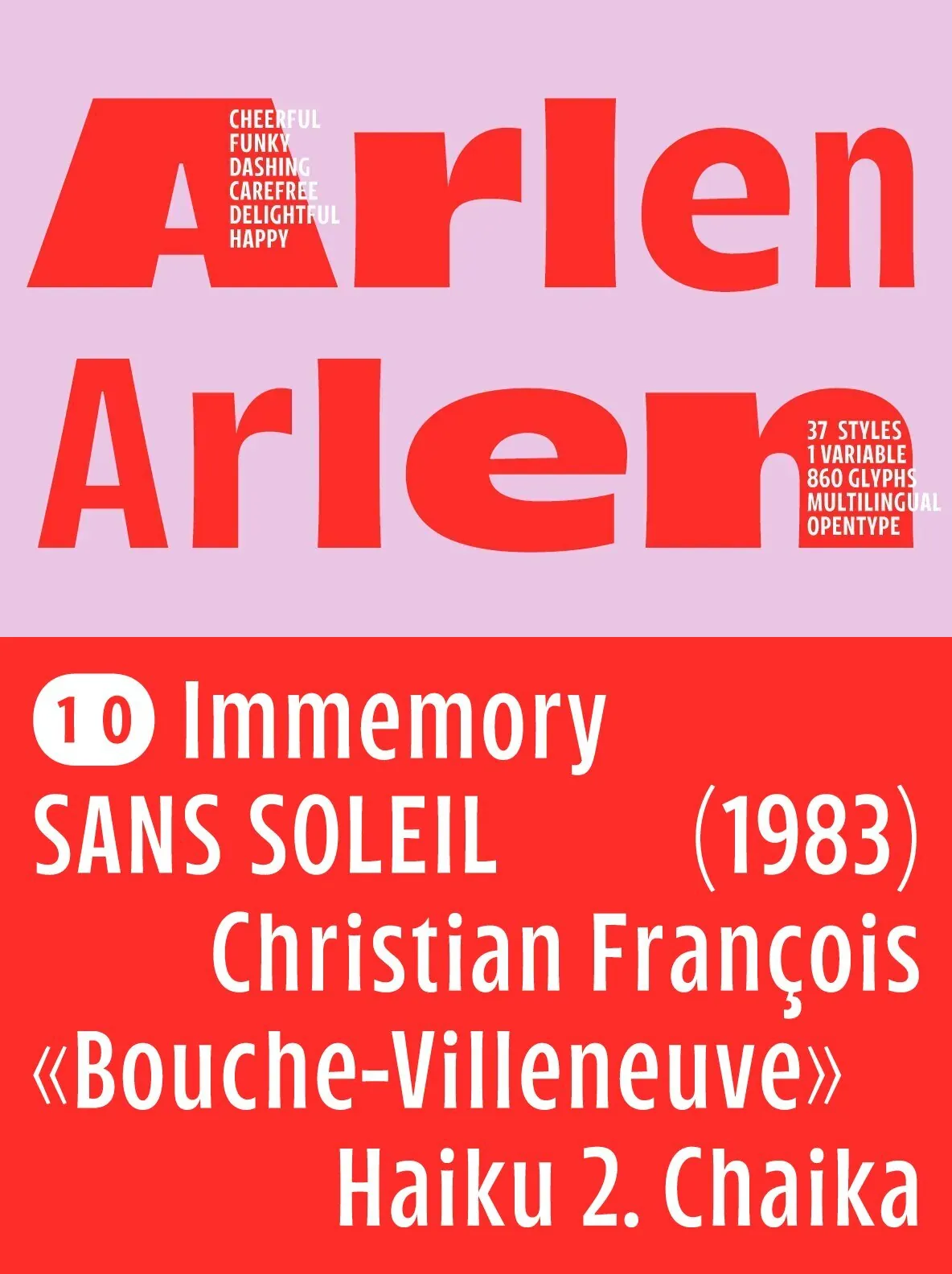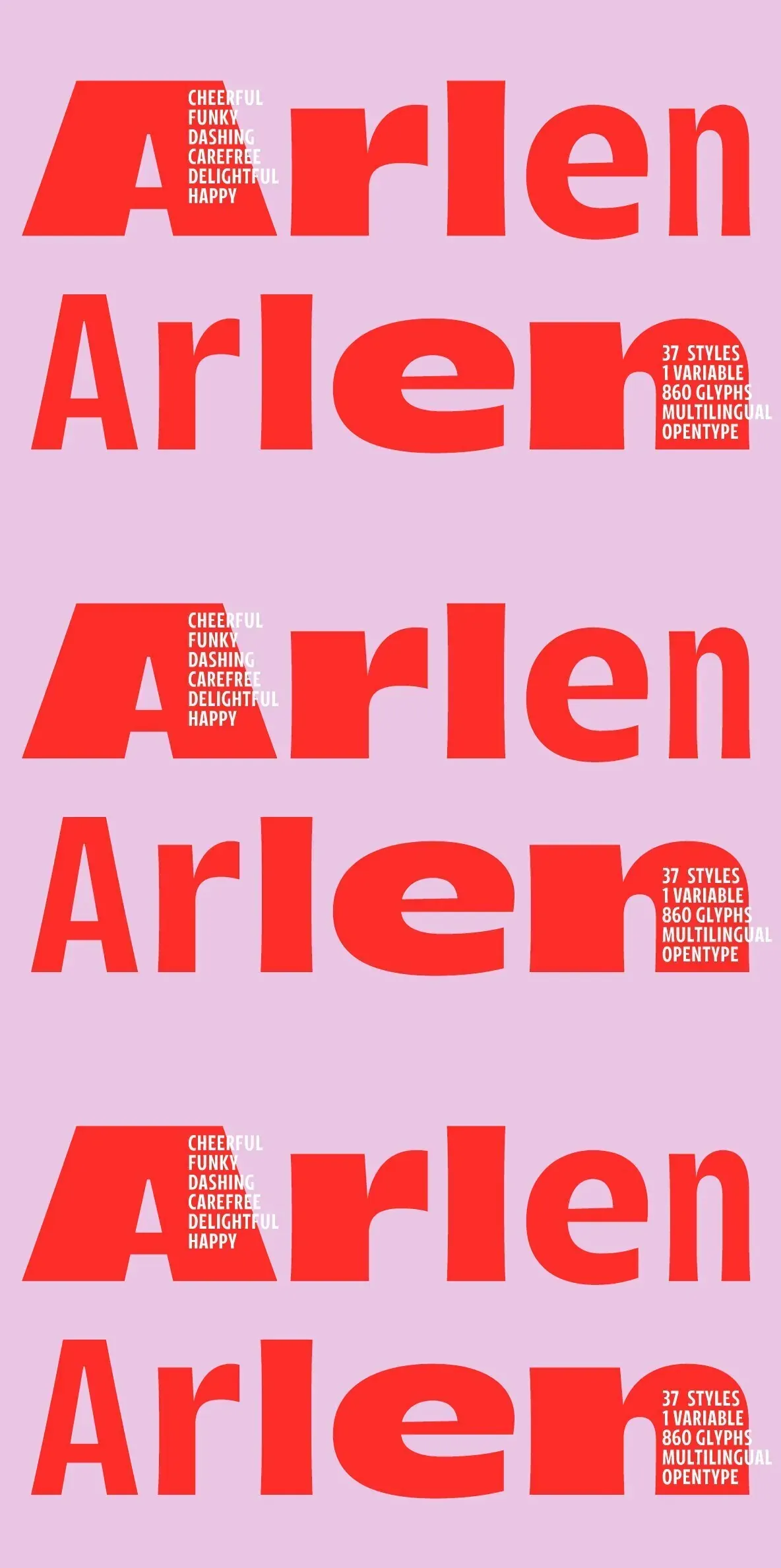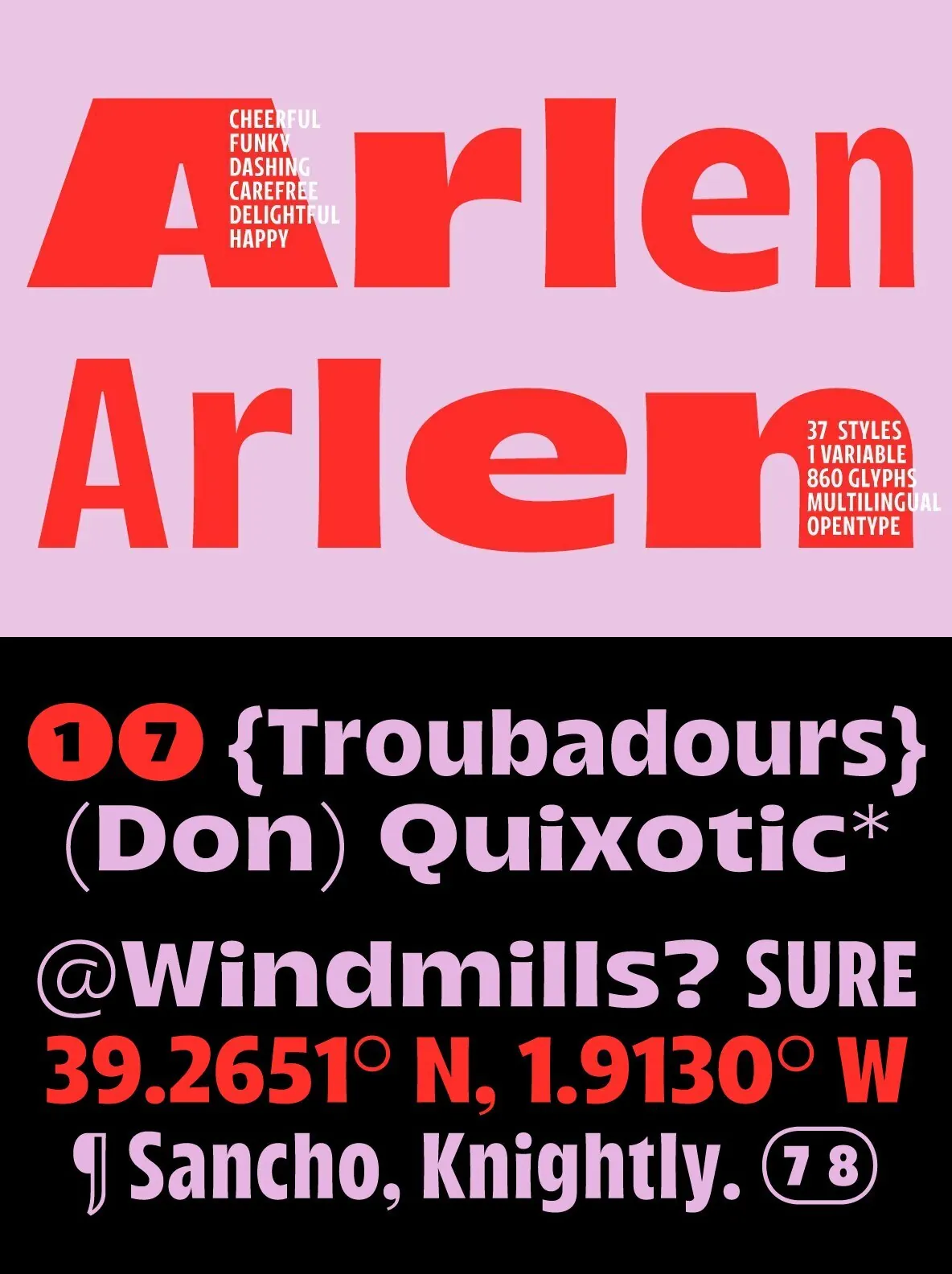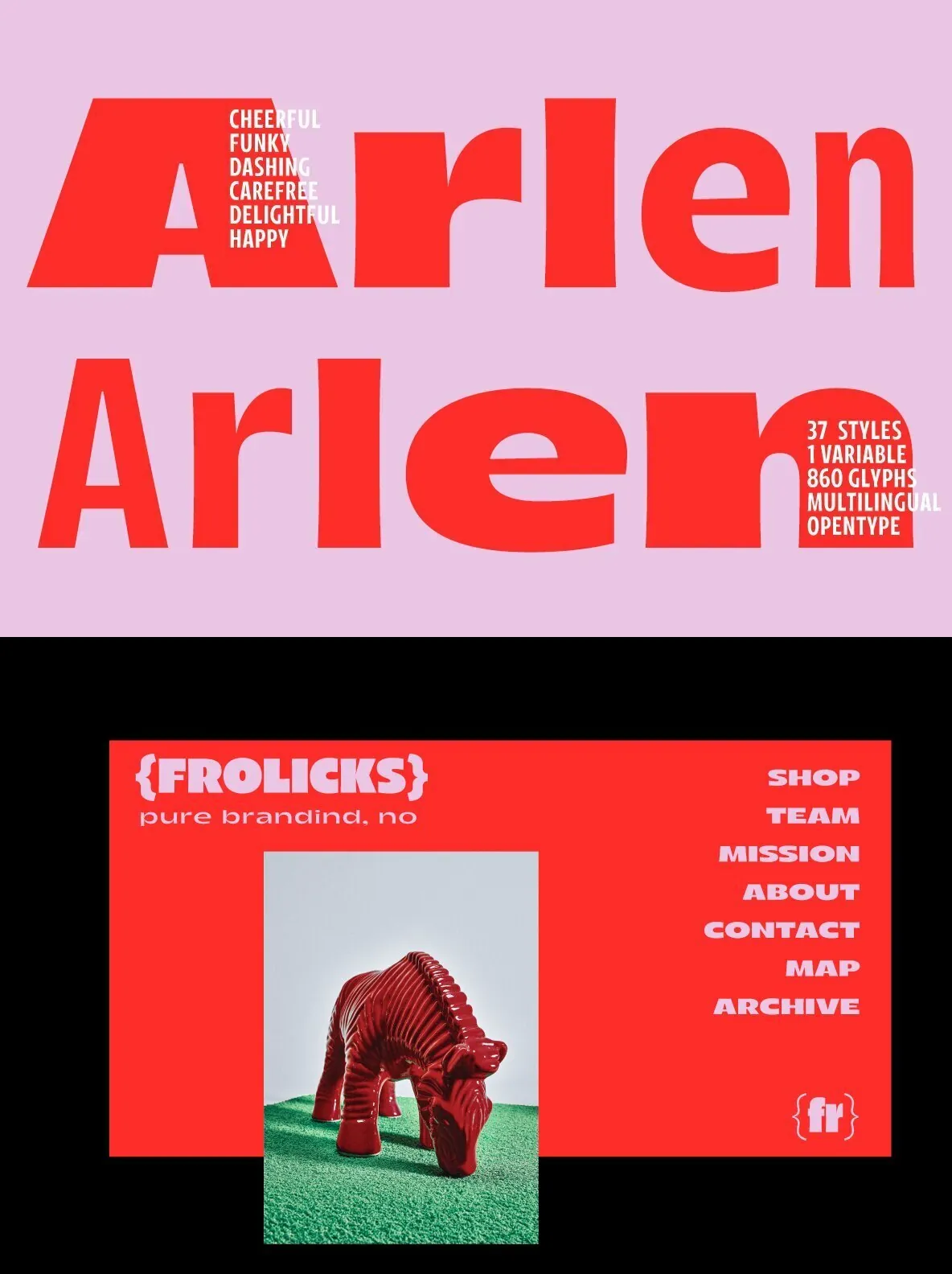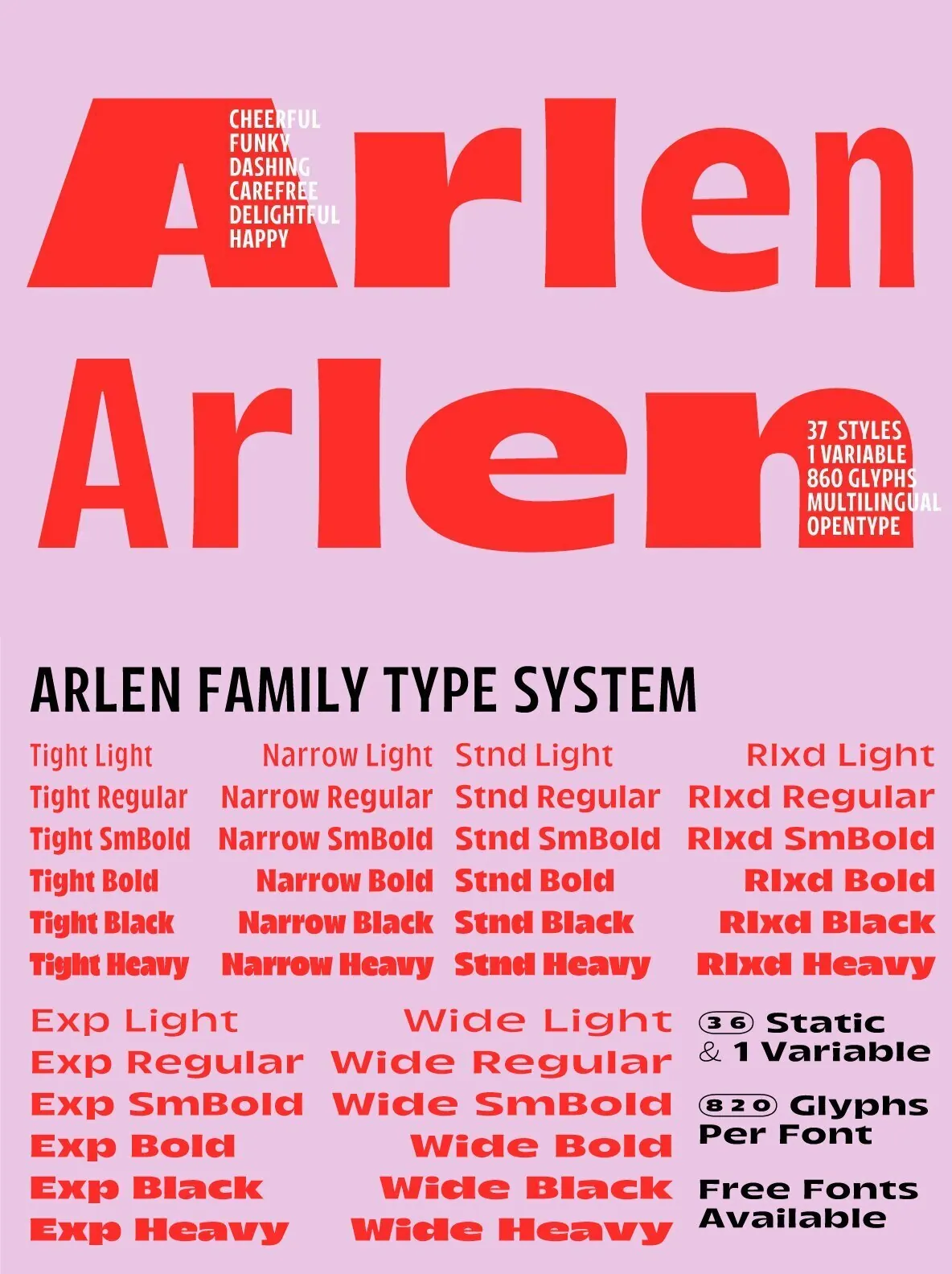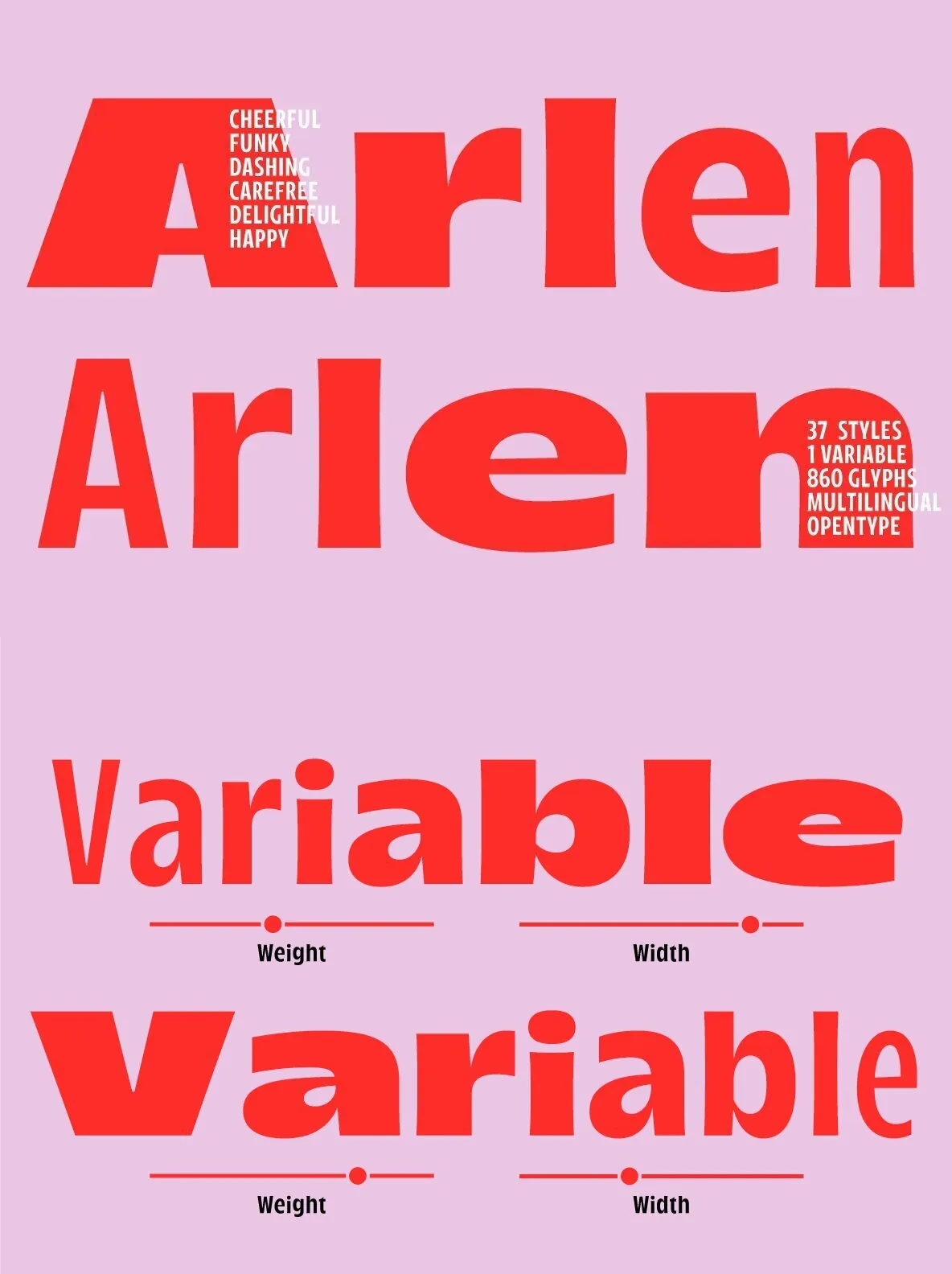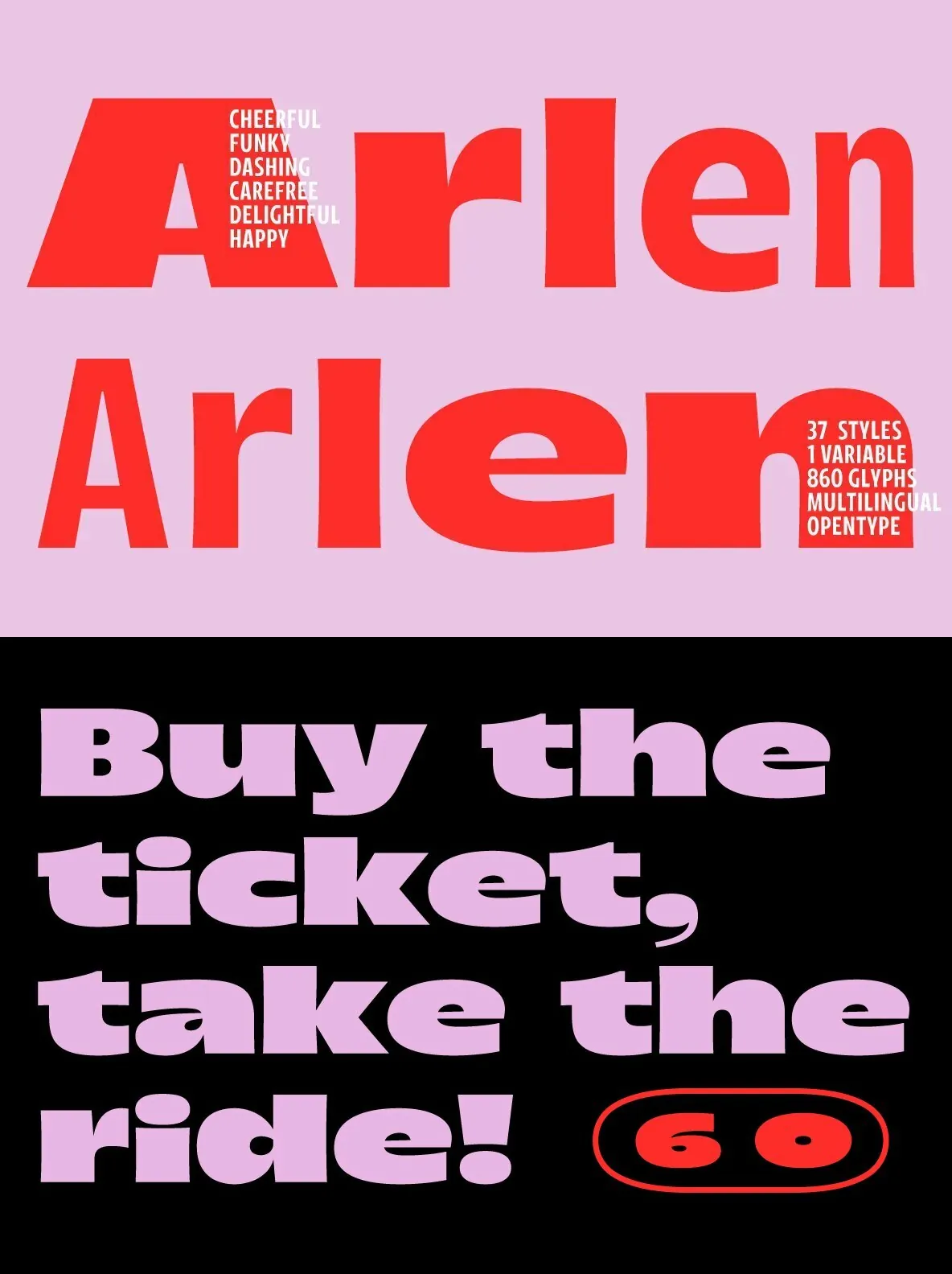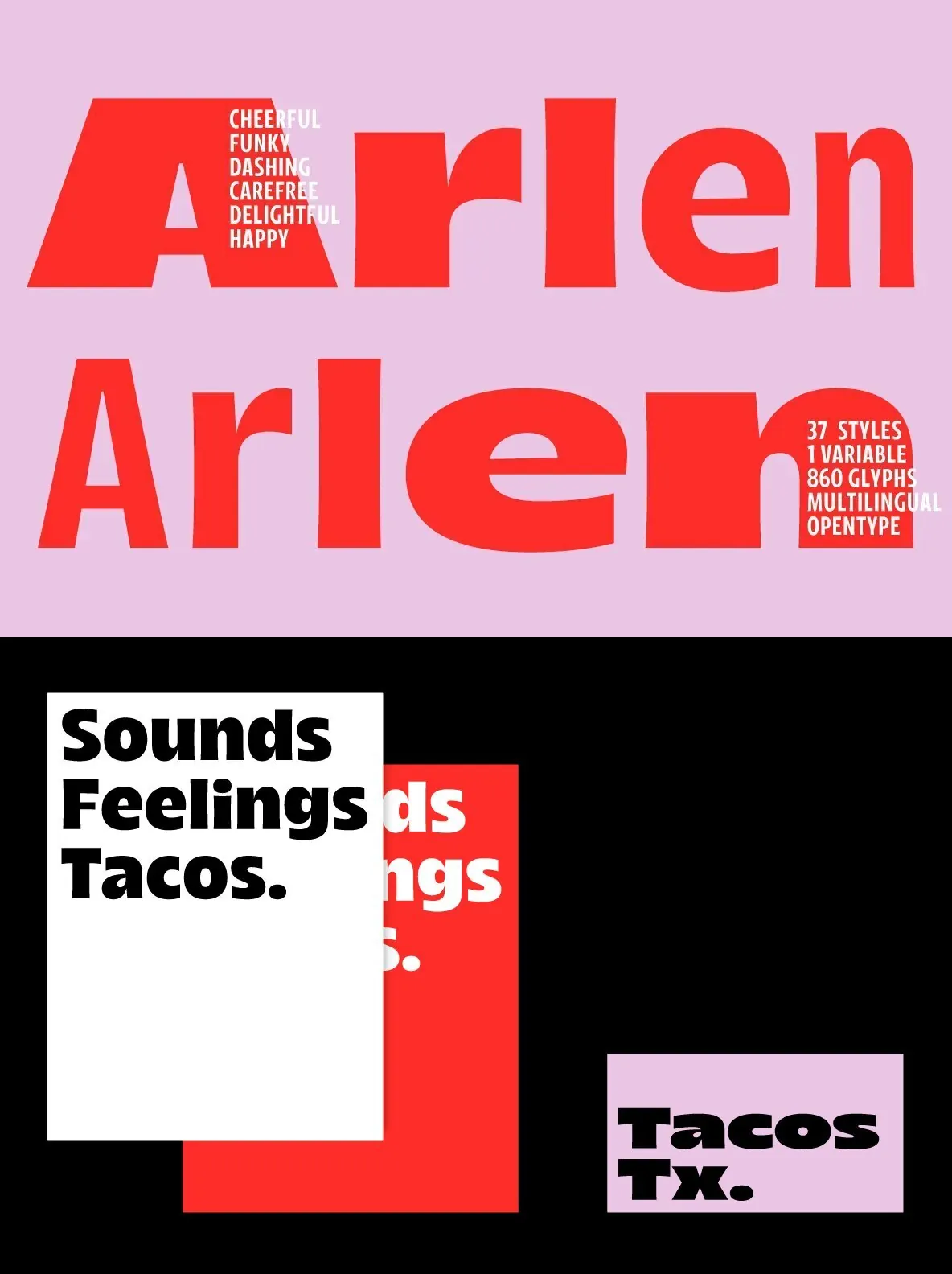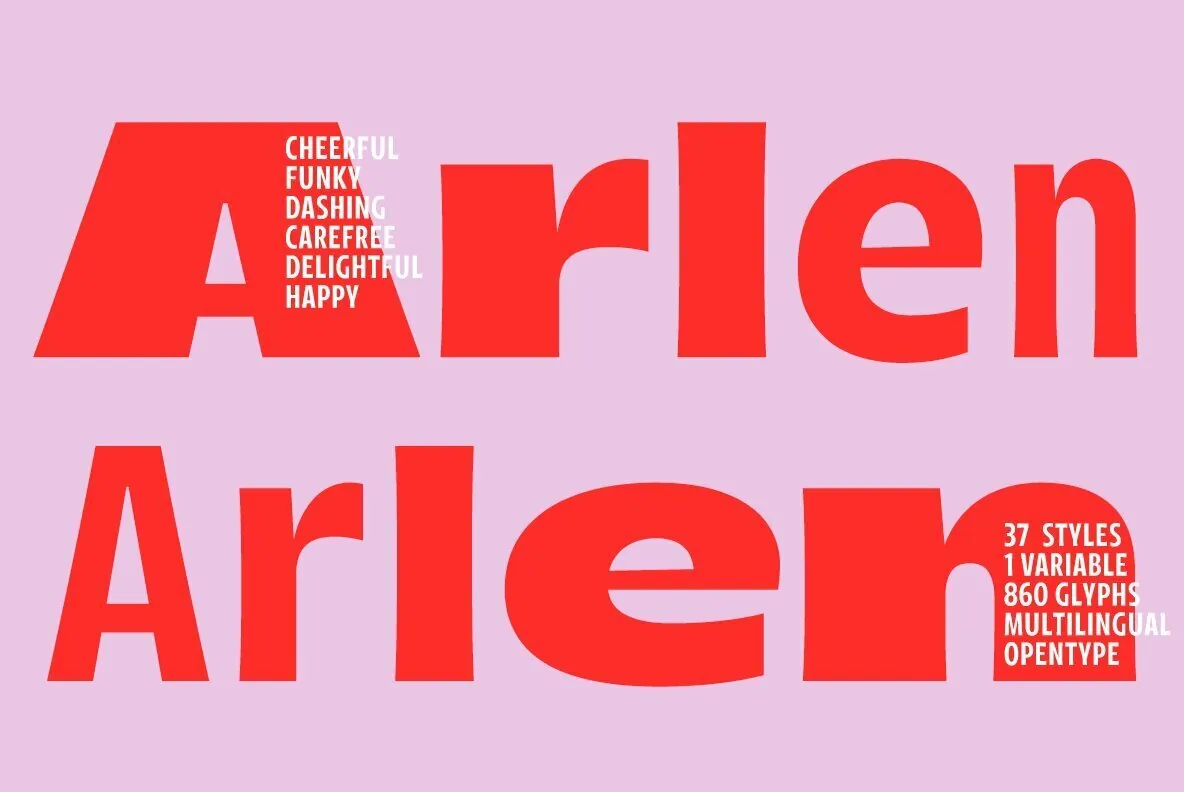
Arlen — 1980s Signage Spirit, Refined
Arlen is a versatile display sans serif type family influenced by the expressive flair of 1980s hand-painted signage. Dynamic letterforms, high contrast, and flaring stems give it a lively, approachable character. Built for visibility at large sizes and readability in extended text, Arlen includes 36 distinct styles that work smoothly across digital and print media.
The family’s expansive design includes 860 characters per style and supports most Latin-based as well as Cyrillic languages, making it well suited to projects with international reach. Arlen balances professional utility with a playful tone, offering alternate glyphs, ligatures, and dingbats for nuanced typographic choices in branding, editorial, advertising, and interactive environments. It also supports essential OpenType features—Case-Sensitive Punctuation, Stylistic Alternates, Tabular Figures, Fractions, Localization, and more—for flexible multilingual typesetting and complex design systems.
Features
36 visually engaging styles
860 characters per style with broad language support (Latin and Cyrillic)
Alternate glyphs and ligatures for varied expression
Dynamic letterforms and high contrast for standout headlines
OpenType features: Case-Sensitive Punctuation, Stylistic Alternates, Tabular Figures, Fractions, Localization, and more
Dual-version characters: select between thin and bold for tailored emphasis
Suitable for advertising, editorial, packaging, digital media, and design systems